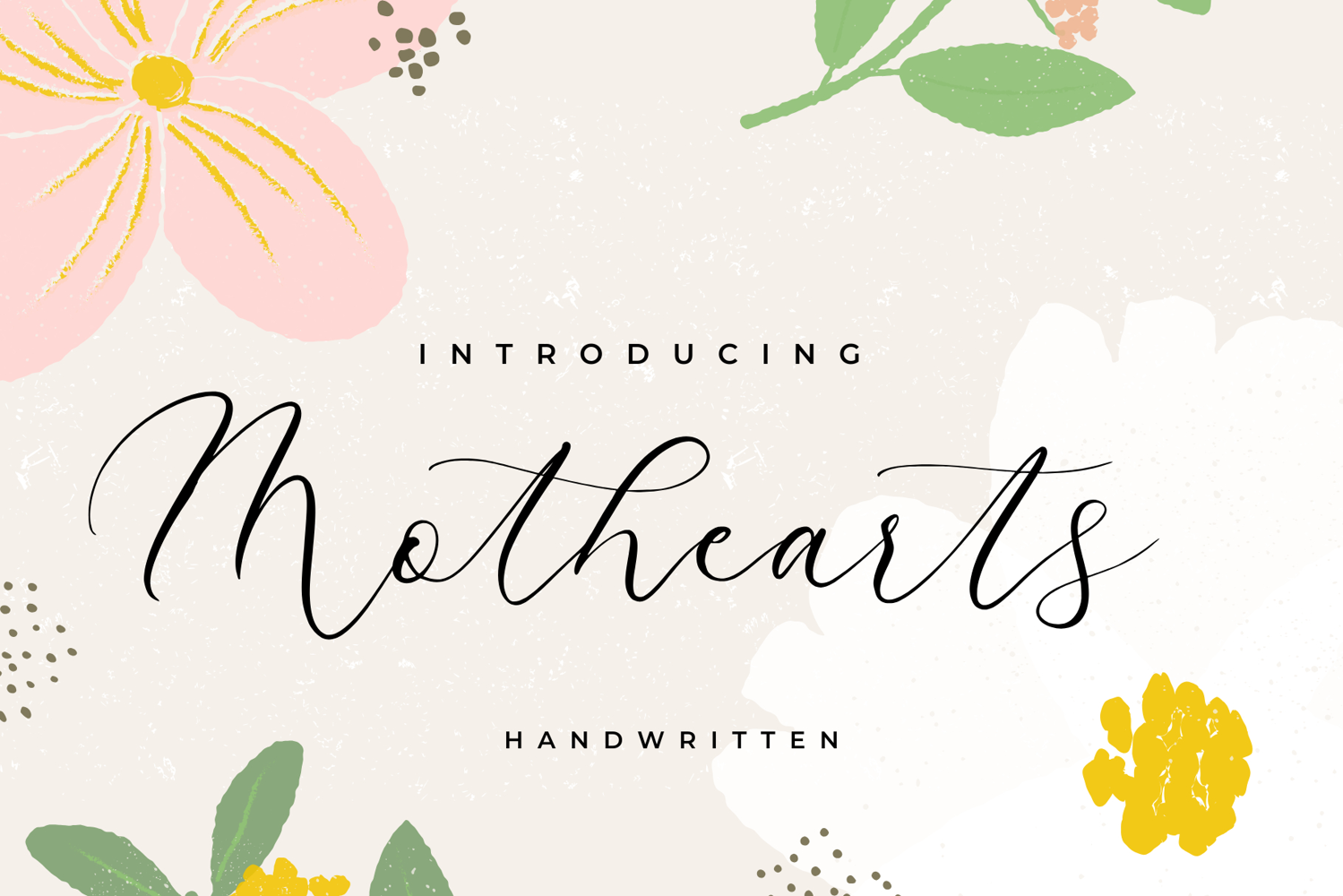
Mothearts
"Motherarts" is an elegant and flowing script font that exudes sophistication and creativity. Its graceful strokes and intricate details evoke a sense of warmth and familiarity, while its modern twist adds a touch of contemporary style. With its balanced proportions and smooth curves, "Motherarts" effortlessly captures the essence of handwritten charm, making it perfect for a wide range of design projects, from invitations and branding to packaging and beyond.